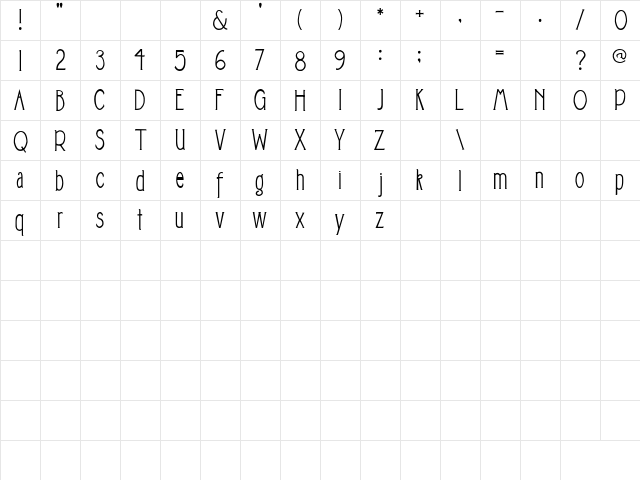
2Peas Lighhouse Regular
Design Context for 2Peas Lighhouse Typeface
2Peas Lighhouse offers clean, dependable letterforms without strong stylistic allegiance, making it a practical choice for designers who need flexibility.